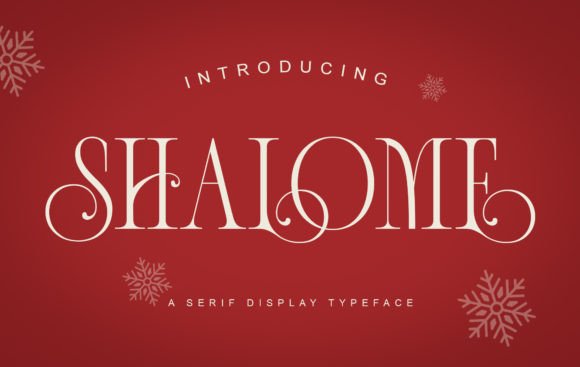
**Shalome: A Journey Through Elegance and Beauty**
In a world where words dance and emotions flow, fonts become the architects of expression. Introducing Shalome, a Serif display font that's not just a collection of letters; it's a masterpiece of classicism, femininity, and elegance, ready to adorn your digital creations. With its beautifully crafted Alternate stylist, Shalome is more than just a font; it's an invitation to embark on a visual odyssey of refinement and grace.
Shalome's allure lies in its versatility, seamlessly adapting to a myriad of projects. From the grandeur of logos and branding to the intimacy of invitations and stationery, Shalome elevates every design with a touch of sophistication. Wedding designs blossom with romance, social media posts sparkle with allure, and advertisements captivate with their refined charm.
Unleash your creativity and let Shalome guide you through the world of printed quotes, transforming them into visual poetry. Enchant product packaging and designs with a timeless elegance that speaks volumes about your brand's identity. Labels, photography, and watermarks become canvases for Shalome's artistry, adding a touch of distinction to your creations.
Special events shimmer with an aura of exclusivity when adorned with Shalome's presence. Its timeless beauty transcends trends, making it the perfect choice for any occasion, whether it's a grand celebration or an intimate gathering.
Shalome is more than just a font; it's an experience, an expression of your unique style and vision. Embrace the power of typography and elevate your designs to new heights with Shalome. Let your words dance with grace, your messages resonate with elegance, and your creations captivate hearts with Shalome, the Serif display font that redefines refinement.
**Features:**
- Classic, feminine, and elegant style
- Beautiful Alternate stylist
- Perfect for logos & branding, invitations, stationery, wedding designs, social media posts, advertisements, printed quotes, product packaging, product designs, labels, photography, watermarks, special events, and more
**Benefits:**
- Adds sophistication and refinement to your designs
- Versatile and adaptable to a wide range of projects
- Helps you create visually stunning and captivating designs
- Makes your words dance with grace and elegance
- Elevates your brand's identity and leaves a lasting impression